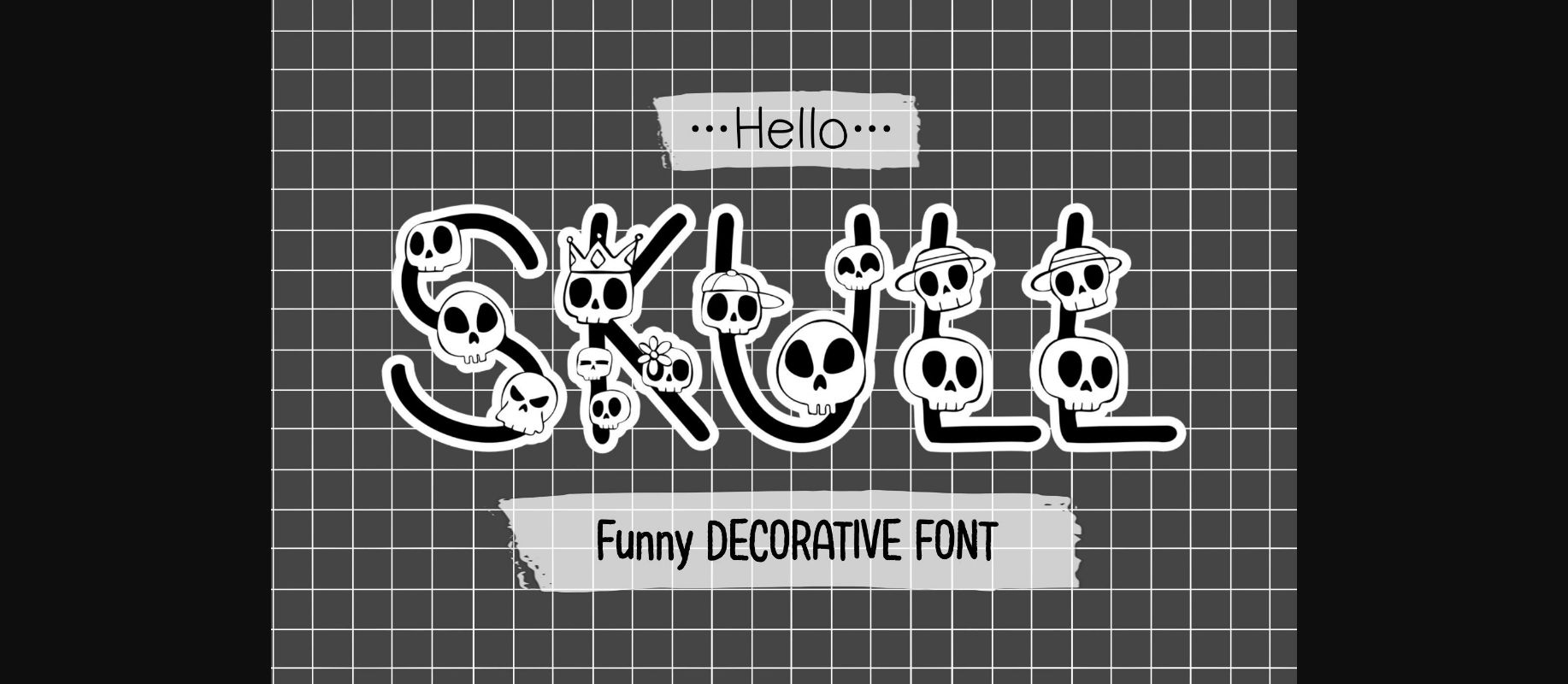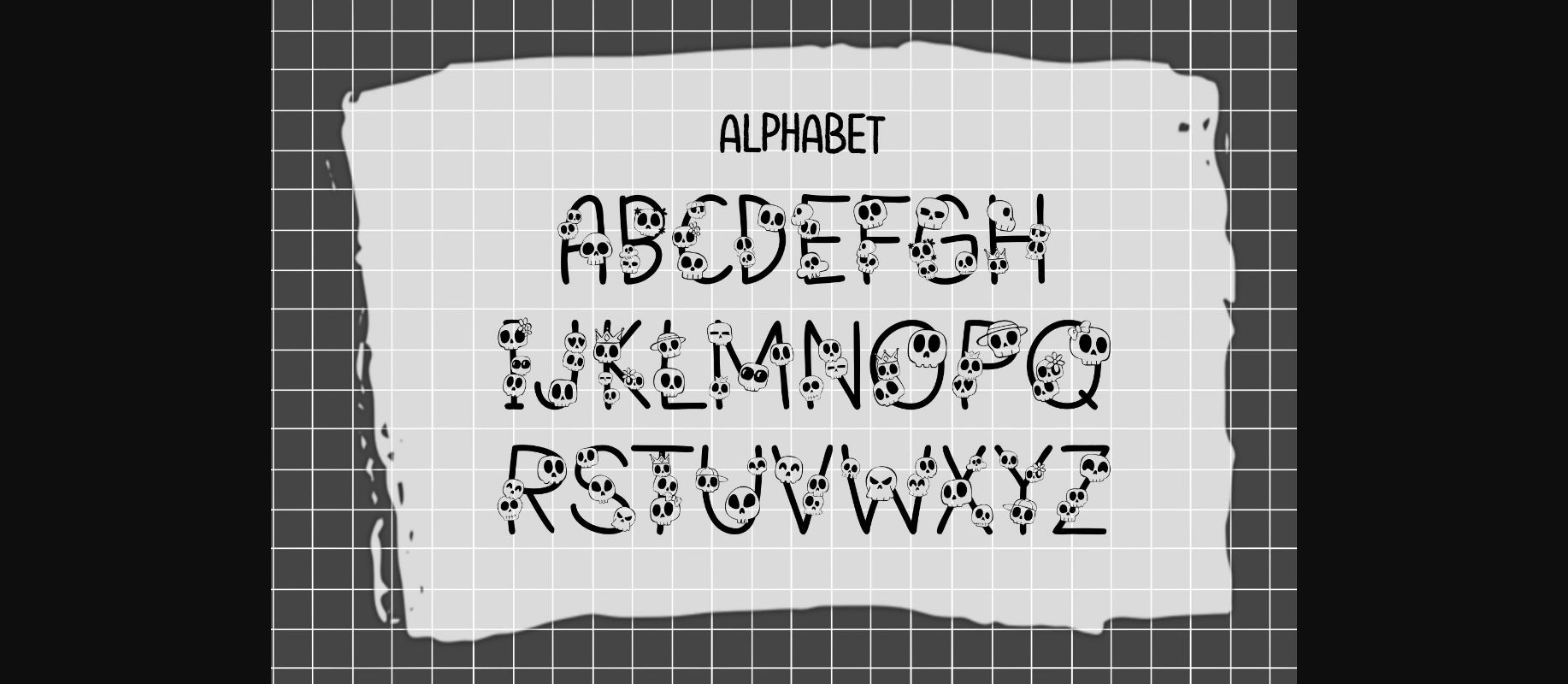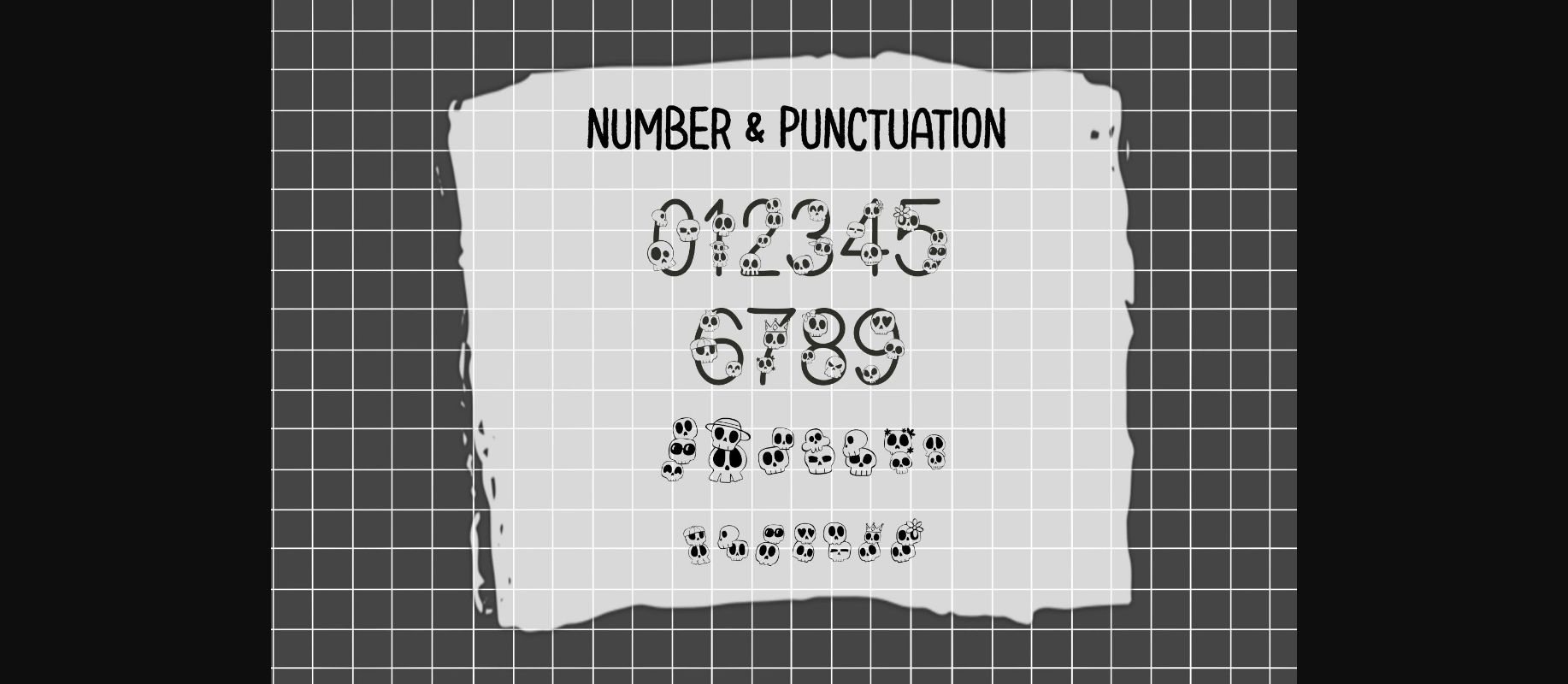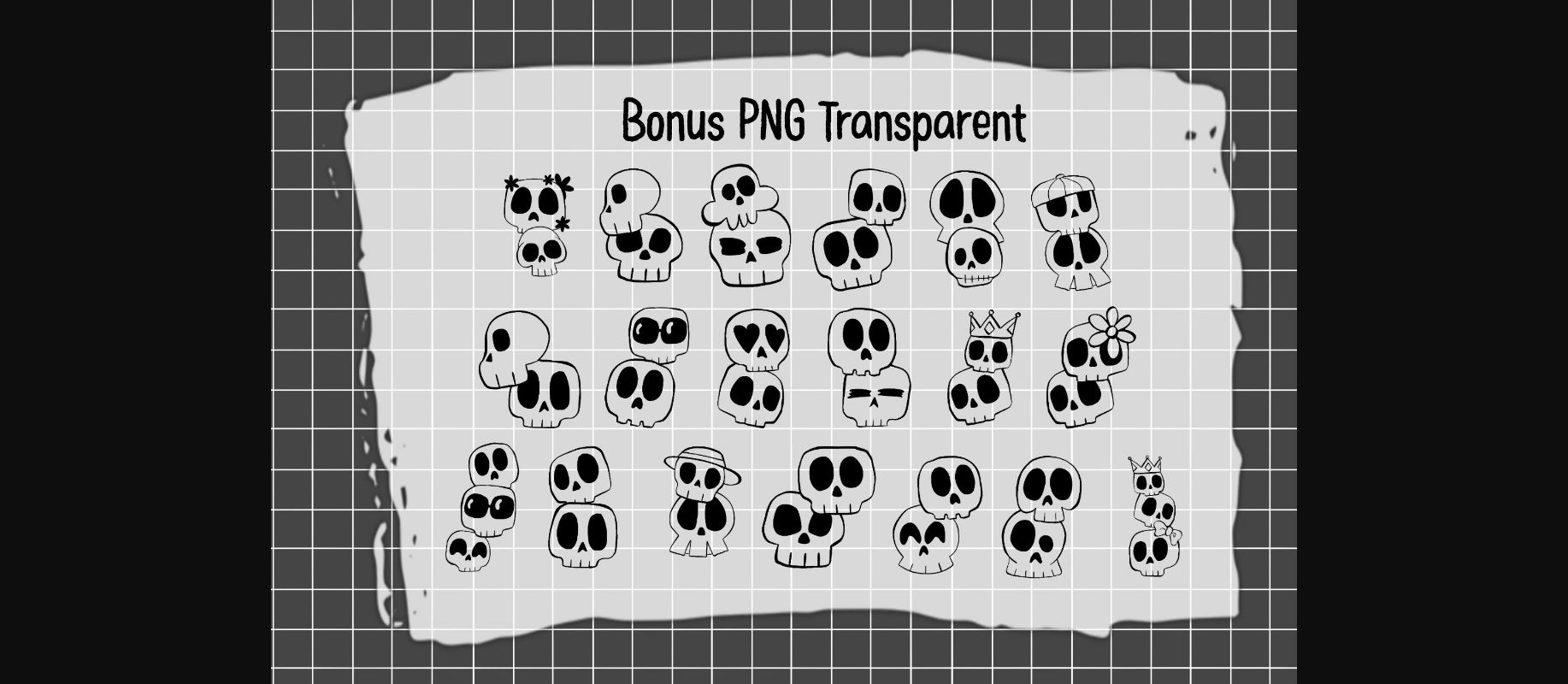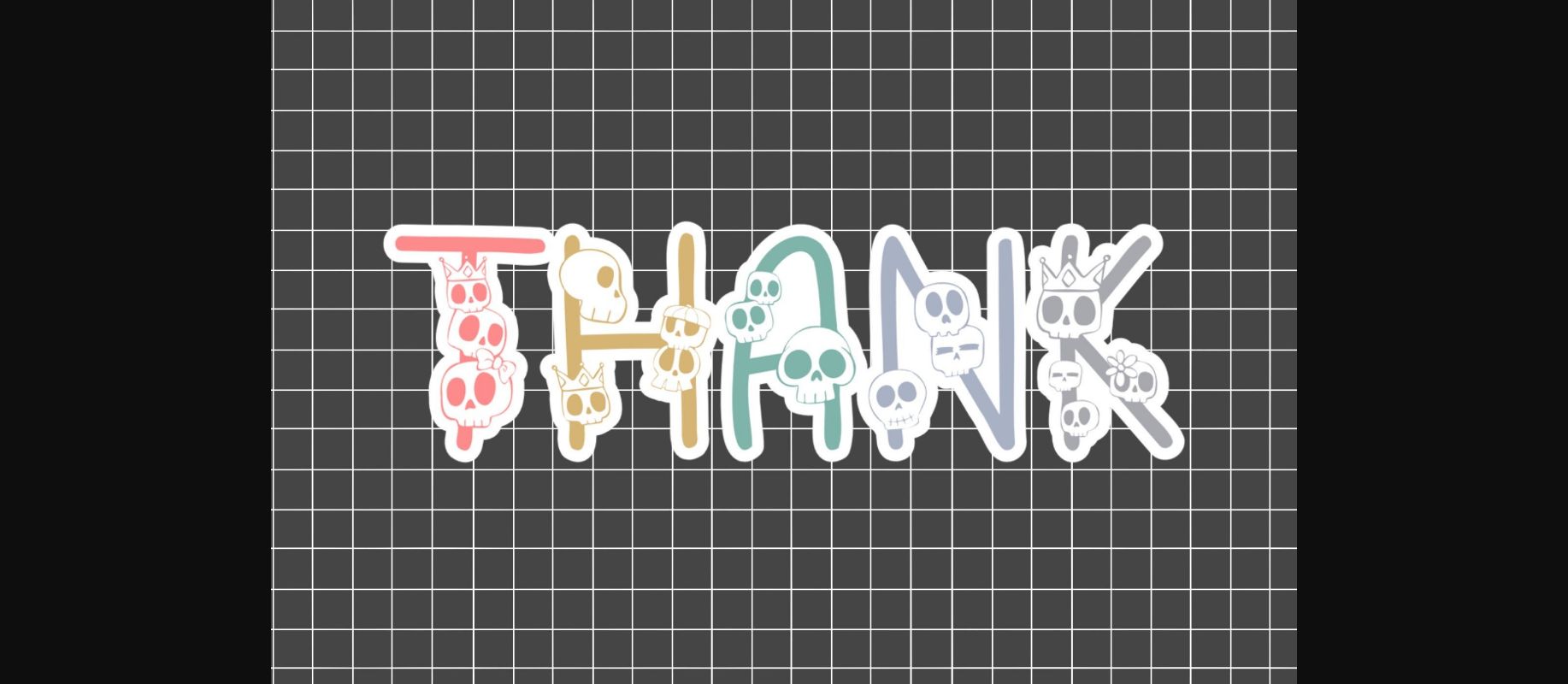
Hello Skull Font
About Hello Skull Font
Hello Skull is a spooky decorative font. This font is the perfect fit for all of your logos, branding, social media, crafty DIY projects, and much more!